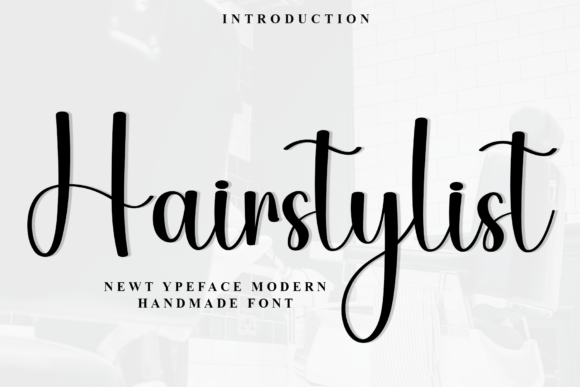
Adding a Touch of Elegance: The Power of Hairstylist Font
Have you ever found yourself staring at a blank page, trying to come up with the perfect design concept for a wedding invitation or a brand logo? The blank space can be intimidating, but it’s moments like these that spark creativity and inspire us to try new things. For designers, it’s all about finding that one special element that takes a design from good to great.
Enter Hairstylist Font, a lovely script font with smooth, flowing letters that exude elegance and style. Whether you’re creating an invitation, a logo, or any other design that needs a touch of beauty and charm, Hairstylist Font is the perfect addition. Its versatility and sophistication make it a valuable asset for designers looking to elevate their work.
Key Features of Hairstylist Font
- Font Family: Hairstylist Font is a unique, handwritten font designed specifically for hairstylists and beauty professionals.
- Character Set: The font includes a wide range of characters, including uppercase and lowercase letters, numbers, punctuation, and special characters.
- Unique Characteristics: Hairstylist Font features a distinctive, handwritten style with flair and personality, making it perfect for adding a touch of elegance and sophistication to beauty-related designs.
Review of Hairstylist Font
Overall, I was excited to dive into Hairstylist Font, hoping it would bring a touch of style to my designs. ✨ Its cursive script aesthetic immediately caught my attention, and I was eager to see it in action.
- ✨ Elegant and flowing feel that’s perfect for fashion or beauty brands.
- ✨ High-quality, smooth lines that make it easy to read, even at larger font sizes.
- ✨ Plenty of customization options, including font weights, styles, and colors.
- ⚠️ Limited versatility – it’s best suited for fashion, beauty, or lifestyle brands.
- ⚠️ May not be the best choice for body text or large blocks of content.
- ⚠️ Some users may find the font too ornate or distracting.
Overall, Hairstylist Font is a solid choice for designers looking to add a touch of sophistication to their fashion or beauty projects. While it’s not without its limitations, I appreciate its unique aesthetic and flexibility.
Tips for Getting the Most Out of Hairstylist Font
Here are some tips to help you get the most out of Hairstylist Font:
- Use the font in combination with other design elements to create a cohesive look.
- Consider using the font in bold or italic styles to add emphasis.
Alternatives to Hairstylist Font
Great Vibes is a beautiful, handwritten font that is perfect for adding a touch of elegance to designs. It is ideal for use in headings, titles, and quotes. Great Vibes is a more elegant and refined alternative to Hairstylist Font, with a more consistent and flowing script.
When to use: Great Vibes is suitable for high-end fashion, beauty, and lifestyle designs, as well as for creating a sophisticated and luxurious atmosphere.
Lato is a clean and modern sans-serif font that is highly legible and versatile. It is ideal for use in body text, titles, and headings. Lato is a more modern and minimalist alternative to Hairstylist Font, with a more straightforward and simple design.
Q: Can I customize Hairstylist Font to create a unique style or variation?